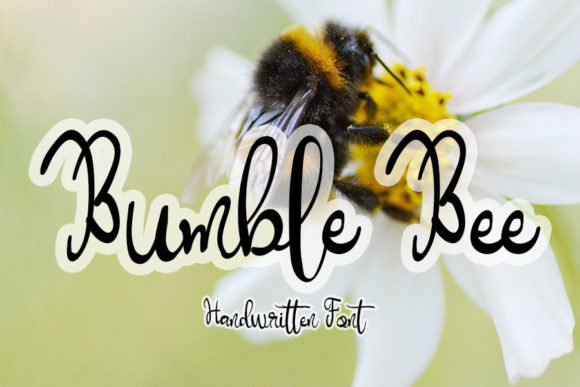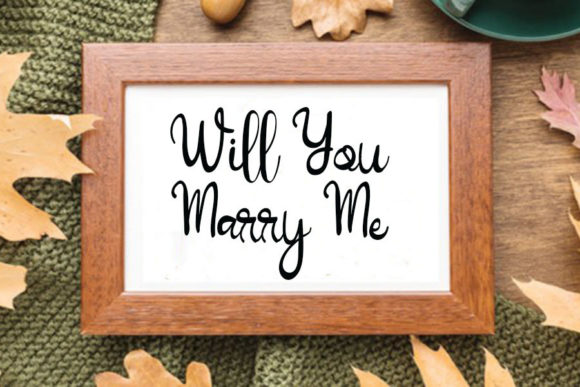
About Bumble Bee Font
Bumble Bee is a charming and elegant script font that adds a touch of beauty and sophistication to a wide range of designs. Whether you’re working on wedding invitations, thank you cards, quotes, greeting cards, logos, business cards, or any other project that requires a handwritten touch, Bumble Bee will make them look stunning.
The letters of Bumble Bee are carefully crafted with charming and graceful characters that exude elegance and style. The font’s flowing lines and intricate details give it a delicate and refined appearance, making it perfect for adding a touch of beauty to your designs.
When used in wedding invitations, Bumble Bee creates a romantic and whimsical feel. Its handwritten style adds a personal and heartfelt touch to the invitation, setting the tone for a memorable and special event. The elegant curves and stylish flourishes of the font make it a beautiful choice for conveying the joy and love associated with weddings.
In thank you cards and greeting cards, Bumble Bee adds a touch of warmth and sincerity. The handwritten nature of the font brings a personal and authentic feel to your messages of gratitude or well wishes. It helps create a heartfelt connection with the recipient and makes the cards even more meaningful.
For quotes and inspirational designs, Bumble Bee adds a touch of elegance and beauty. Its charming characters and flowing lines bring a sense of grace and sophistication to the words, enhancing their impact and making them visually appealing. Whether it’s a motivational quote or a thought-provoking message, Bumble Bee helps capture attention and evoke emotions.
When used in logos and business cards, Bumble Bee brings a unique and stylish look. Its handwritten touch adds a sense of individuality and creativity, making your brand or personal identity stand out. The font’s elegance and charm make a lasting impression and create a positive association with your business or personal brand.
Overall, Bumble Bee is a versatile and captivating font that adds a charming and elegant touch to various design projects. Its beauty and sophistication make it a perfect choice for wedding-related materials, heartfelt cards, inspiring quotes, and professional branding. Embrace the charm of Bumble Bee and let it elevate your designs with its handwritten grace.